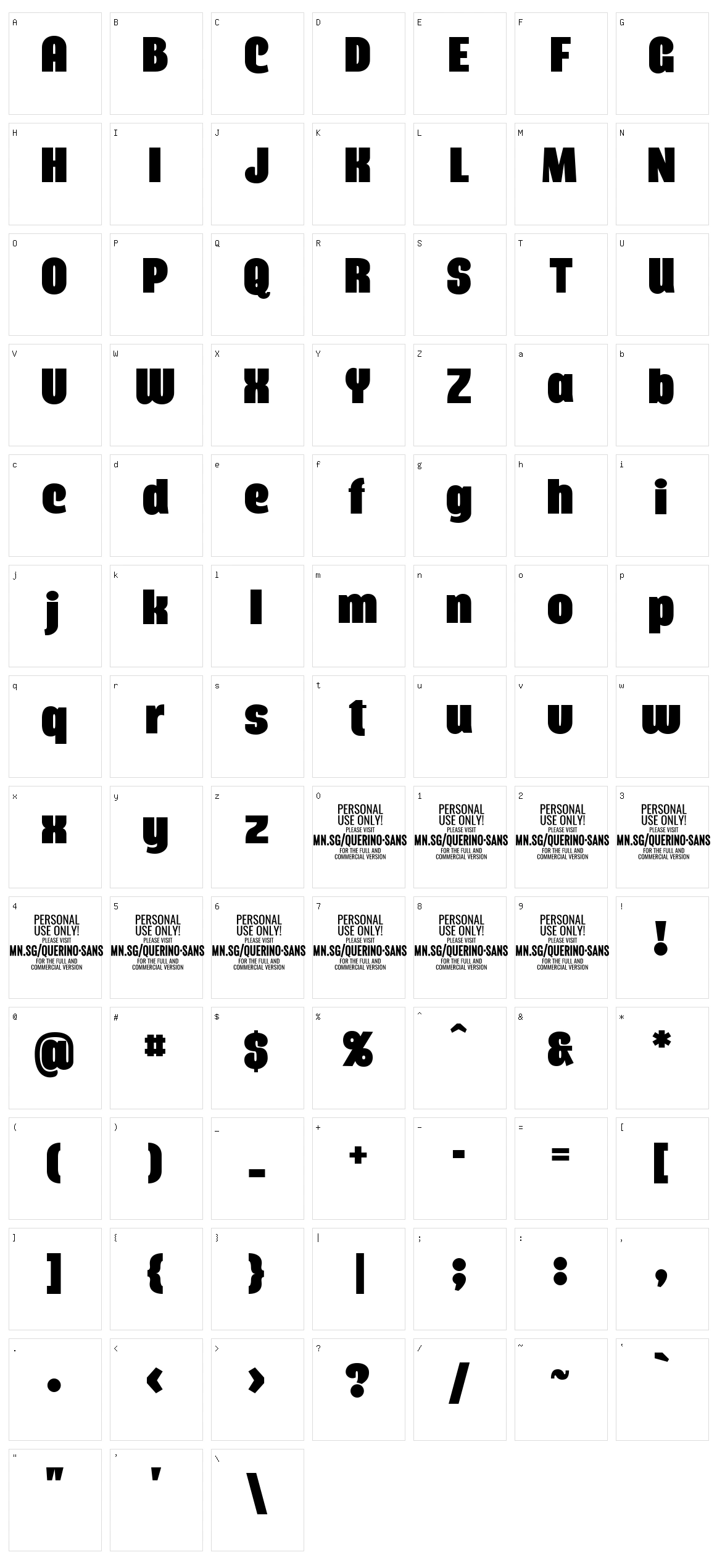
Querino Sans is an extra-bold sans font, created by Måns Grebäck during 2018 and 2019.
It comes as a regular, upright version and as italic.
The font is multilingual and has an extensive range of glyphs; it supports all Latin-based
European languages, contains numbers as well as all symbols and characters you'll ever need.